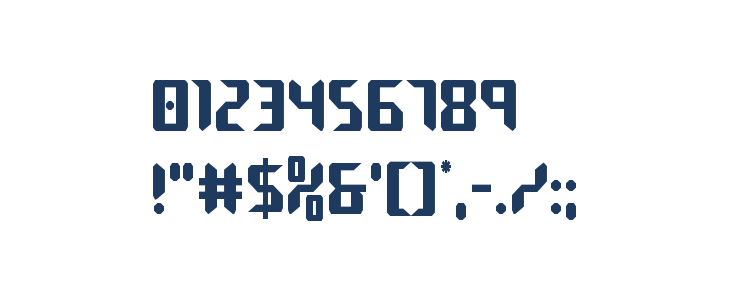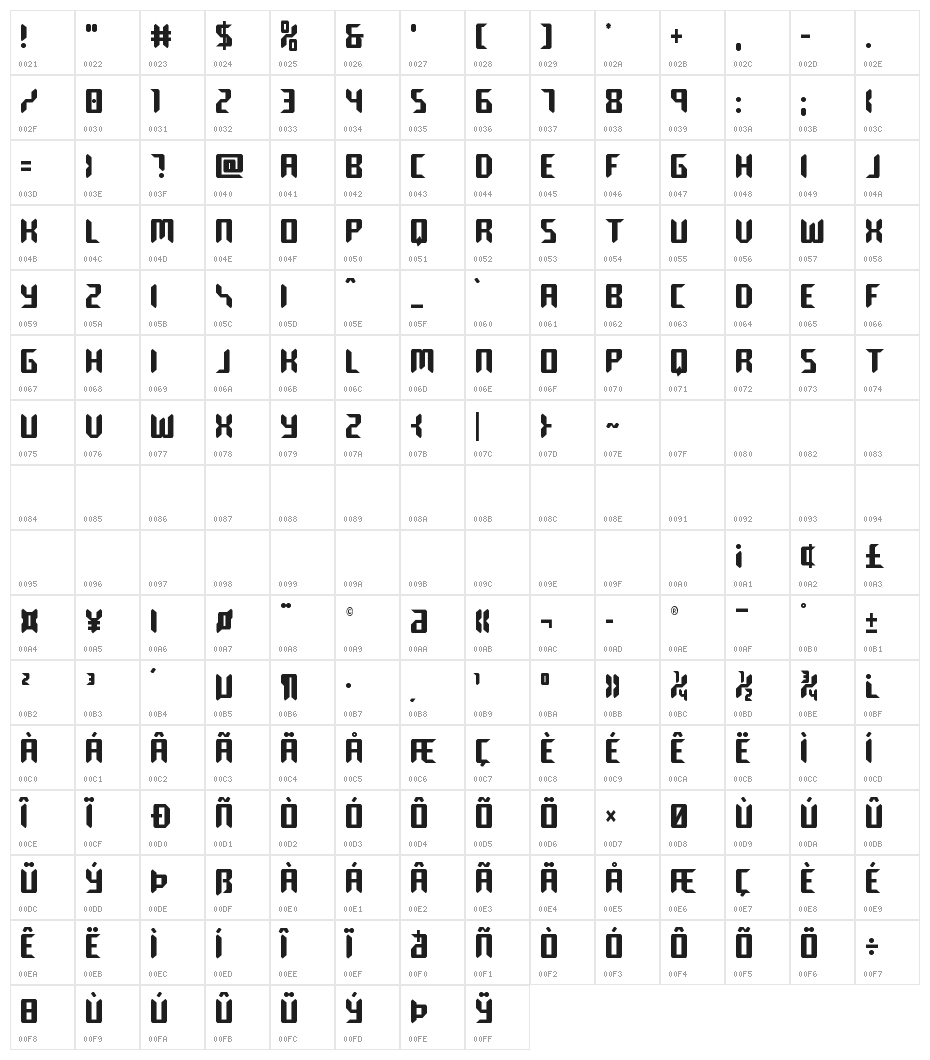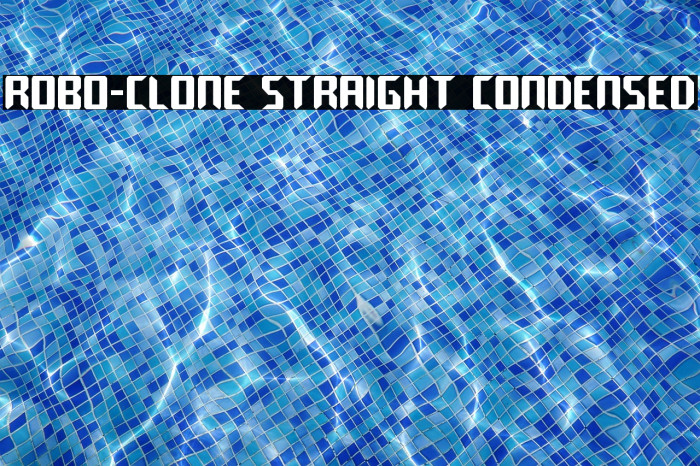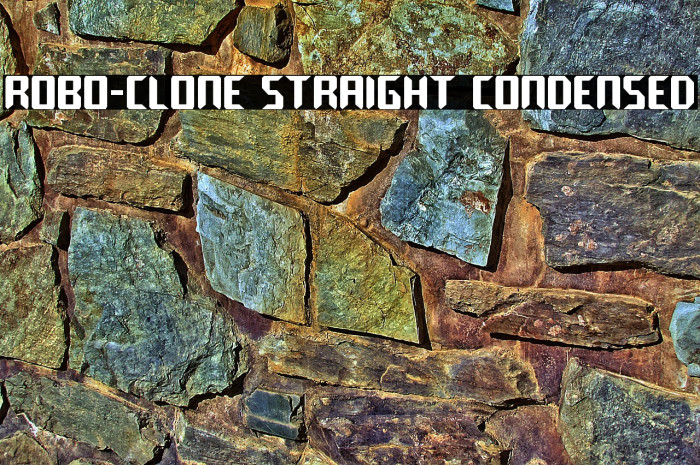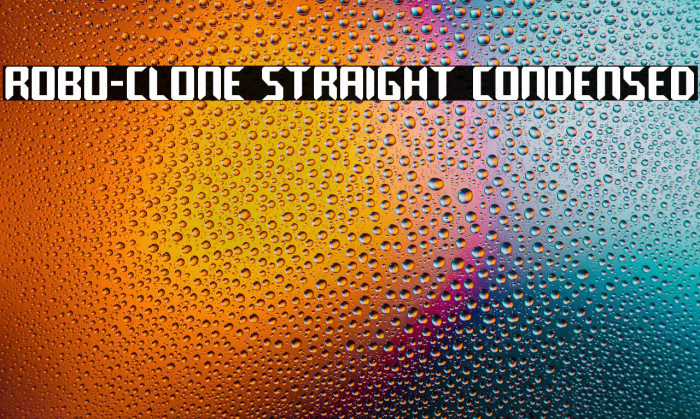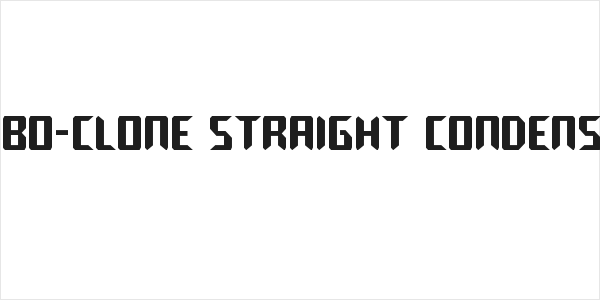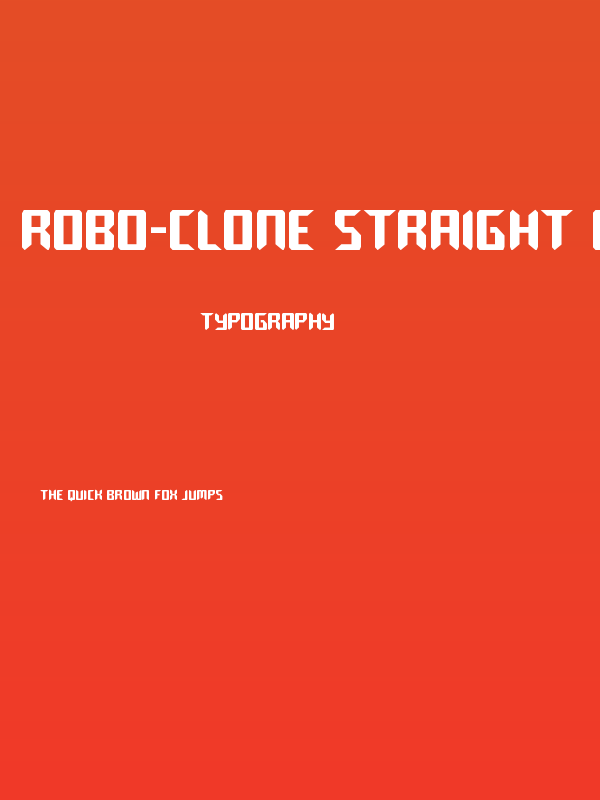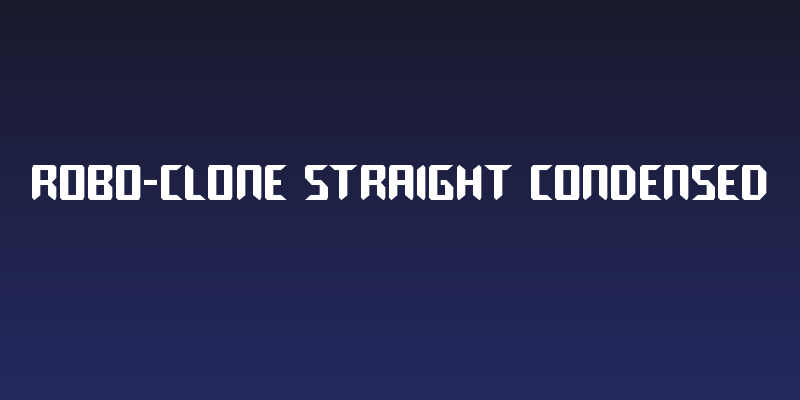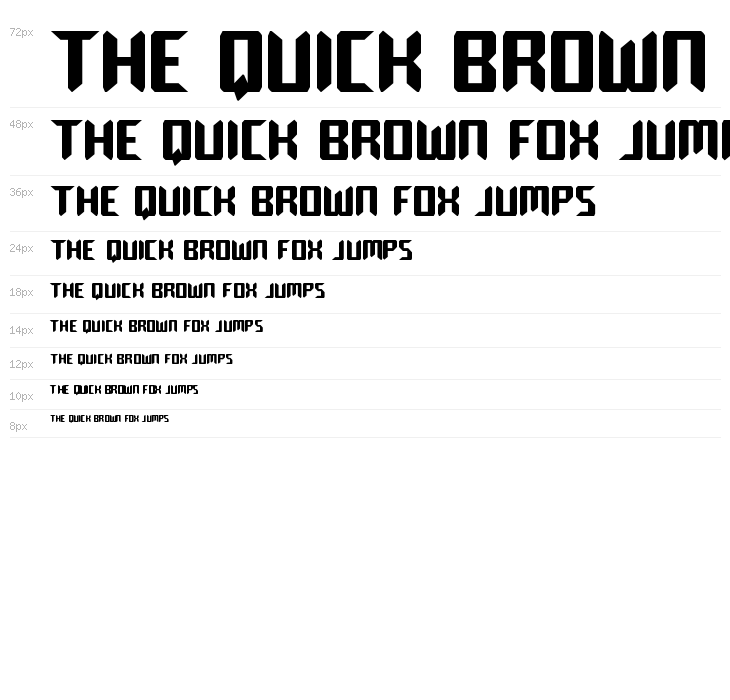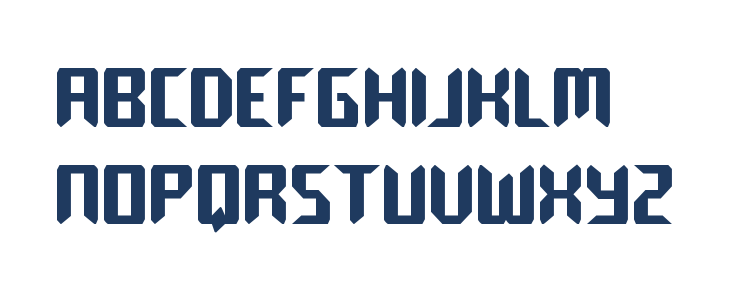
Robo-Clone Straight Condensed Font
Robo-Clone Straight Condensed Description
This font features a bold and futuristic design with straight, angular lines and a condensed structure. The characters are uniform in height, creating a cohesive and streamlined appearance. The geometric shapes and sharp edges give it a robotic and modern feel, making it stand out in any design. The uppercase and lowercase letters maintain a consistent style, while the numbers and special characters complement the overall aesthetic. This font is ideal for projects that require a strong, impactful visual presence.
| Proposed Projects | Ideal for technology branding, sci-fi posters, video game titles, and modern advertising. |